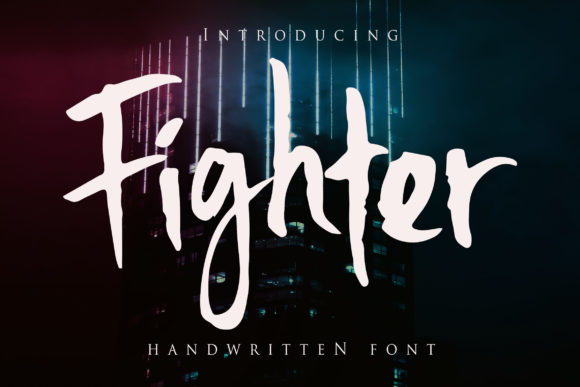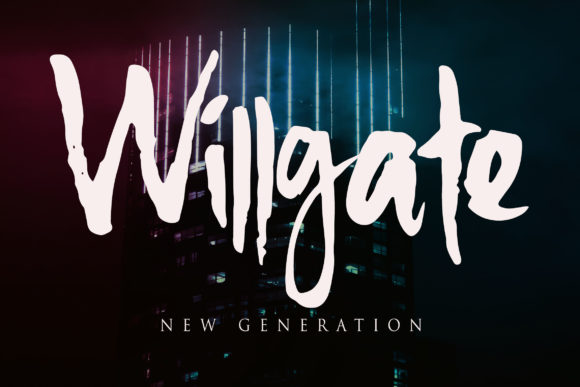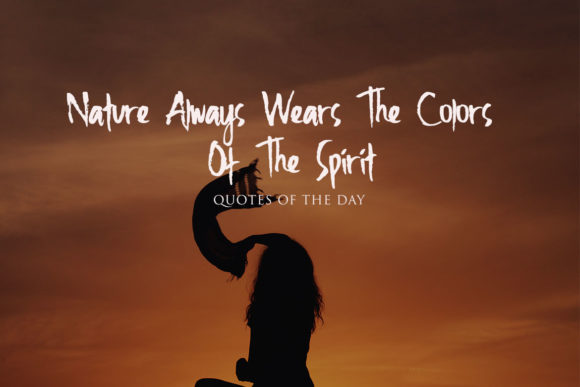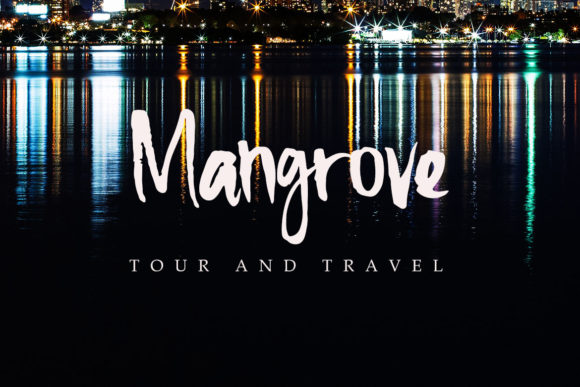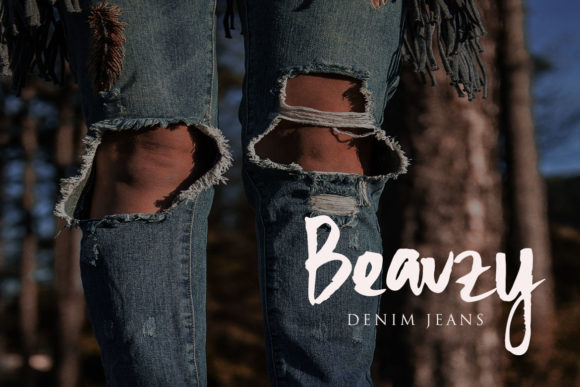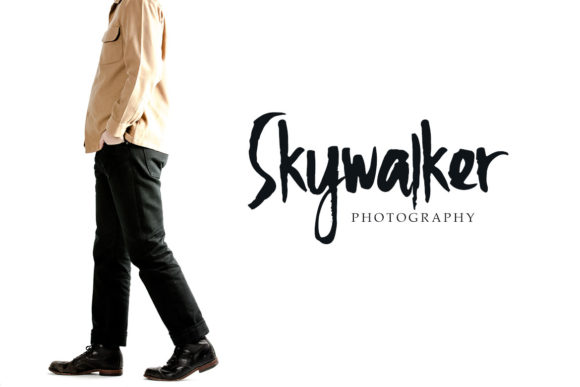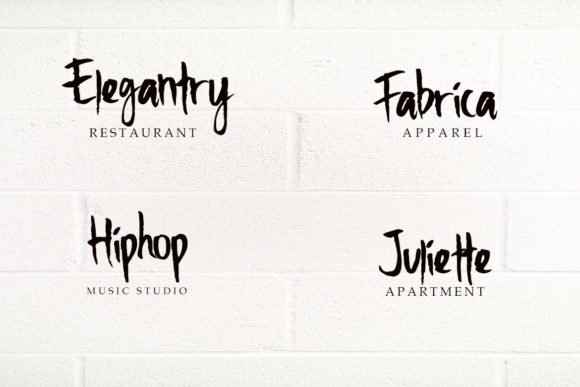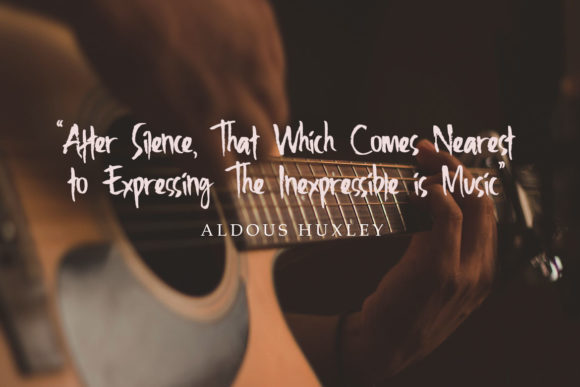
Fighter Font
About Fighter Font
Fighter is a casual brush script suitable for various designs. It is perfect for adding a bold edginess to your project.